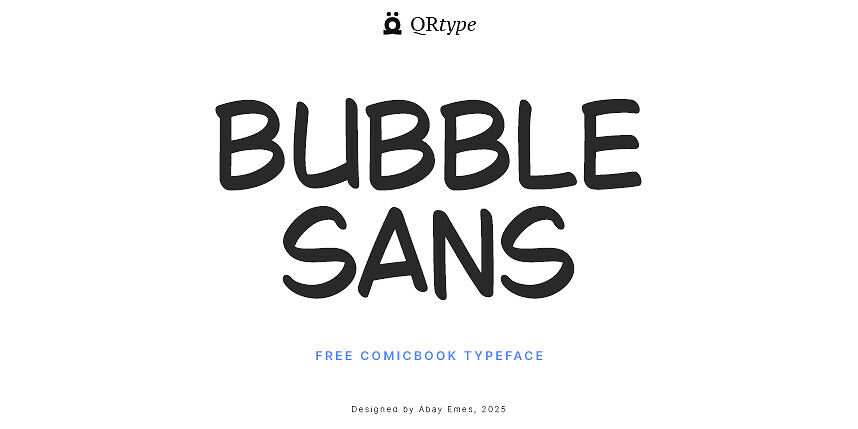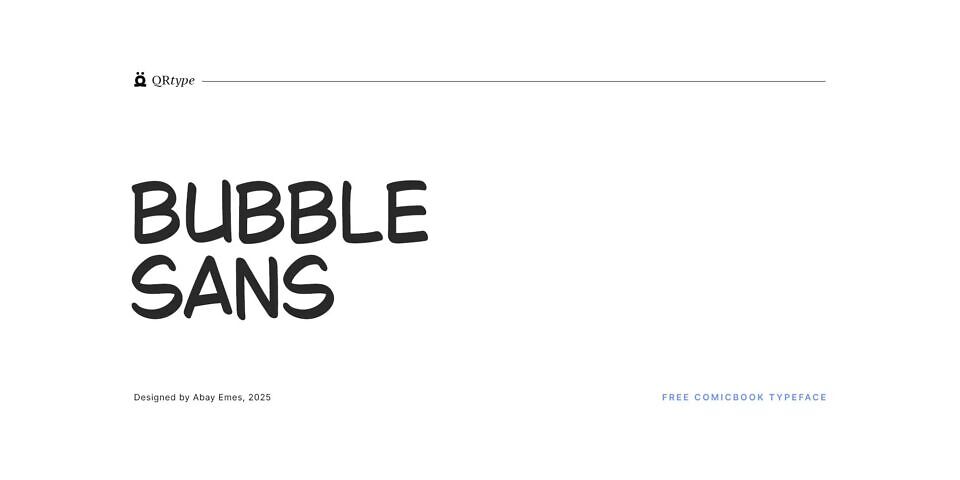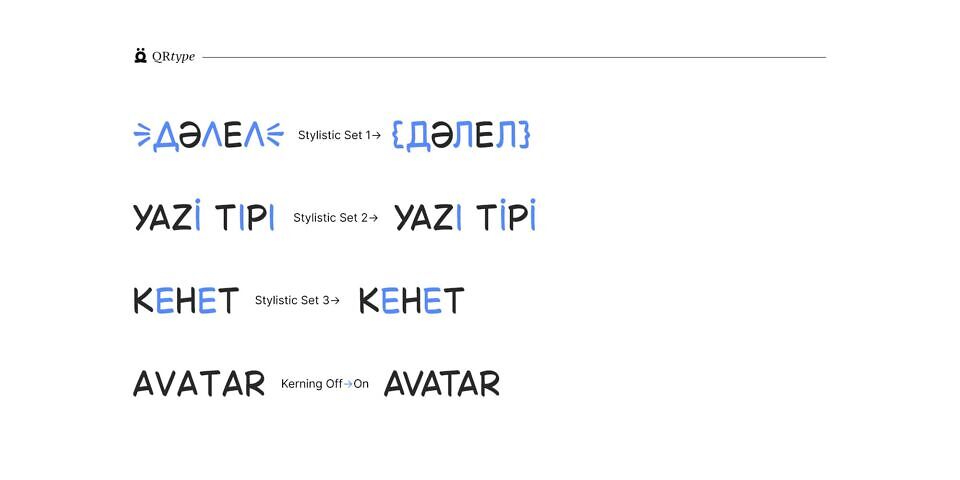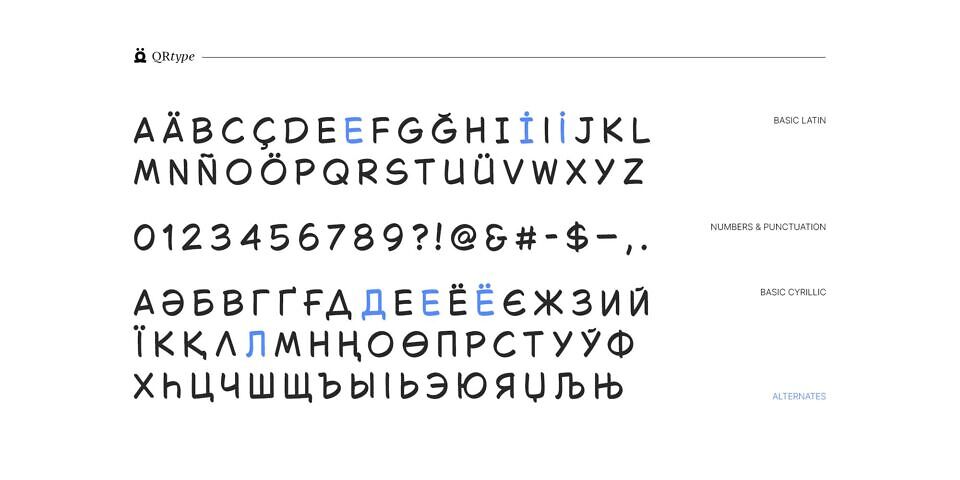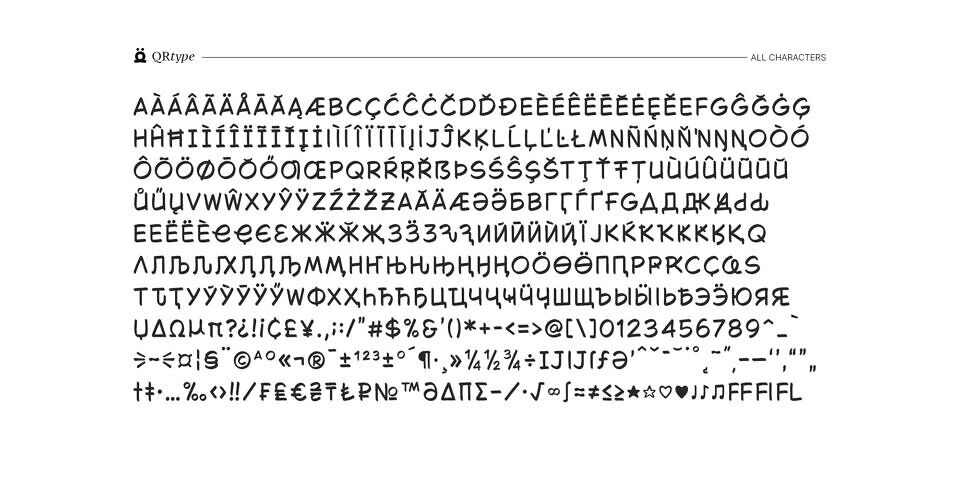
Bubble Sans is a completely free comicbook typeface crafted by Abay Emes. Repeats the style of speech bubble fonts of classic comics of the 2000s.
Includes over 700 glyphs, over 5000 kerning pairs and supports over 300 languages.